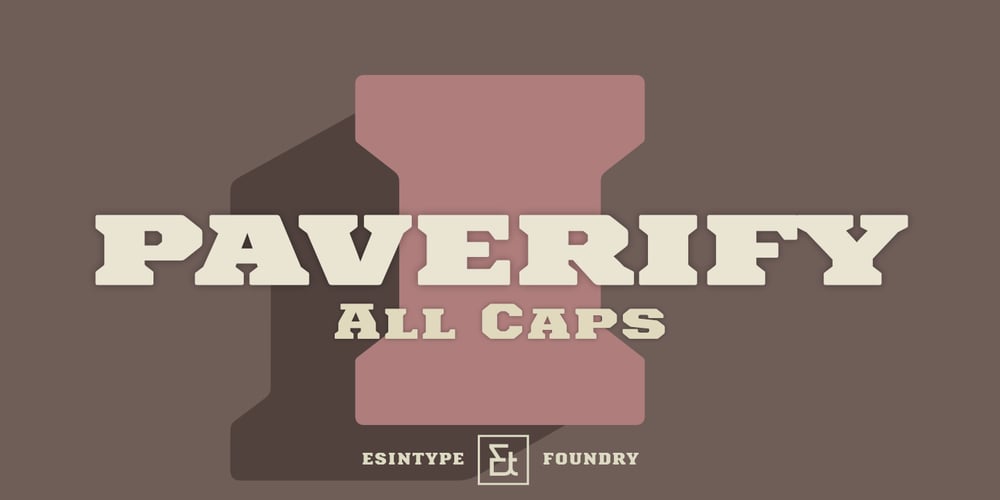
Paverify Font Family was designed by Ali Riza Esin, Ege Esin and published by Esintype. Paverify contains 6 styles and family package options. Paverify is an all-caps geometric slab serif display face inspired by a particular pavement tile component which is evoking a blocky “I” letter. All other characters were interpreted based on its look and drawn accordingly.There are three uppercase Roman fonts in different weights and widths substantially. With the additional versions, type family consisting of 7 fonts in total.Over 220 Latin, Cyrillic and Greek script languages supported. Each font contains an extensive multilingual support with more than 1600 glyphs and OpenType features, including number forms, fractions, and stylistic alternate sets those provide different looks by the typographic preferences. For the lowercase letters there are small caps variants, i.e., shorter caps. These also have identical glyphs and matching marks to enable “Small Capitals From Capitals” feature.Narrower Medium and Bold styles was produced to accompany the Black first design. Paverify comes with an ornaments font named as “Extras”, which contains geometric graphical elements, i.e., paver stone patterns, banner/sticker background sets, star comps and a collection of catchwords to simplify creating feature rich layouts.As is known as interlocking paver in certain regions — a rectangular shape with the distinctive diagonal tabs — transcribing the simplest letter to draw into the whole alphabet was a challenging task. Not only it was the single thing that can be used as a source, considering its thick form in roughly 1.2:1 proportions compared to the sophistication of letterforms was the challenge. Starting point was keeping design consistent while both avoiding and preserving a particular appearance to achieve a similar texture, basically a repeating pattern on the streets.In contrary of a traditional approach, Paverify tend to have more contrast than the other slab serifs which helps to reduce massive stem weight of the source form. This look contributes to its hand painted sign effect achieved in a certain degree, which may otherwise impractical to transform because the source material is an inorganic, static form by definition.Tight and even spacing of the pavement tiles was inspirational for the kerning balance of the letters. Although the lighter weights have more space between the letter pairs, black weight adjusted as to be close to each other as the original grid. Tight spacing can be ignored by using Capital Spacing OpenType feature for the Outline versions as layer fonts. In one stroke, this gives an extra space between the letters to avoid diagonal armed letter terminals overlap.Black typographic colour and texture gives a sturdy appearance to the lines, it is useful for the projects where a robust display faces preferred for the titling, strong headlines, letter stacks, dropcaps, initials, short names on materials such as advertisements, book covers, posters, logotypes, wordmarks, package designs, and more in print or digital. Paverify can be paired as a complimentary face in a combination with broader type systems, where vintage look compositions and woodcut style fusions requiring an extra stunning texture.